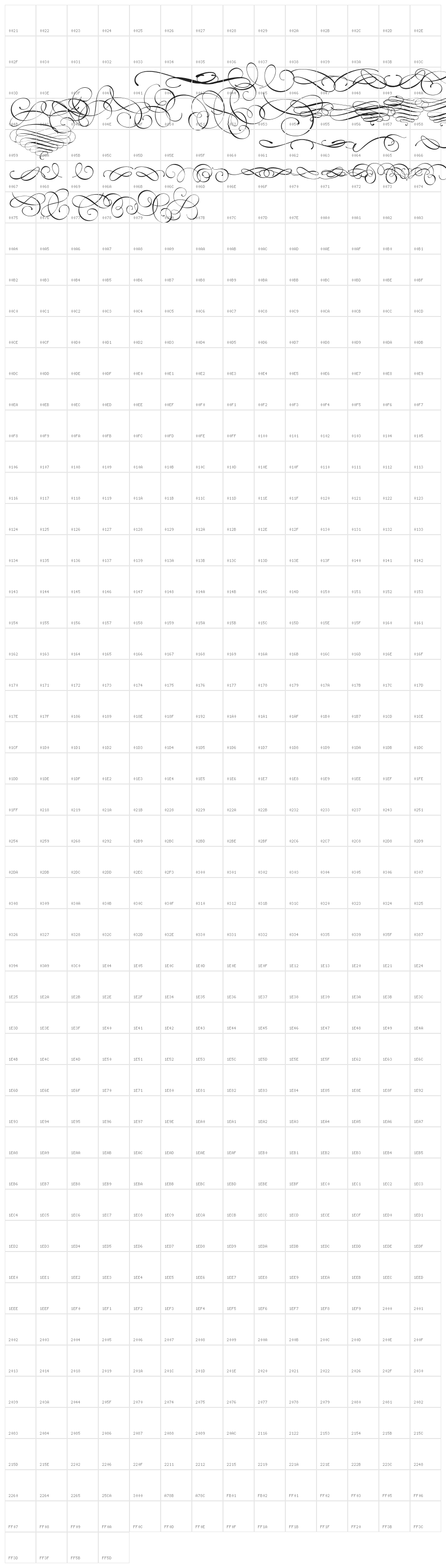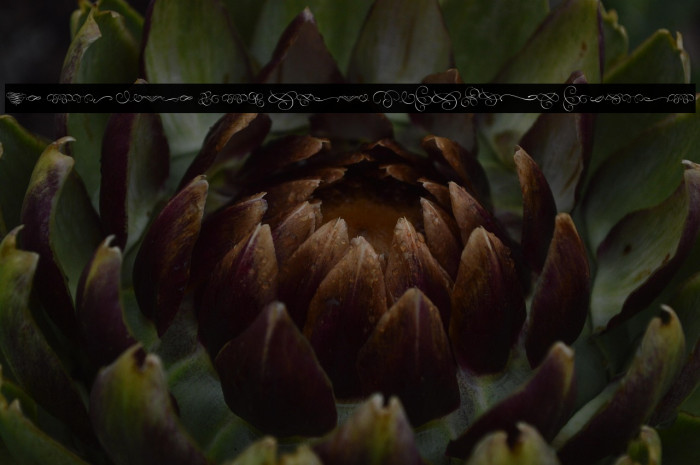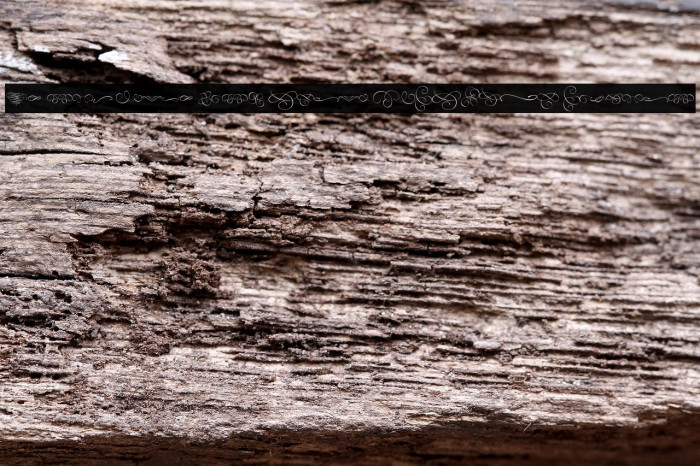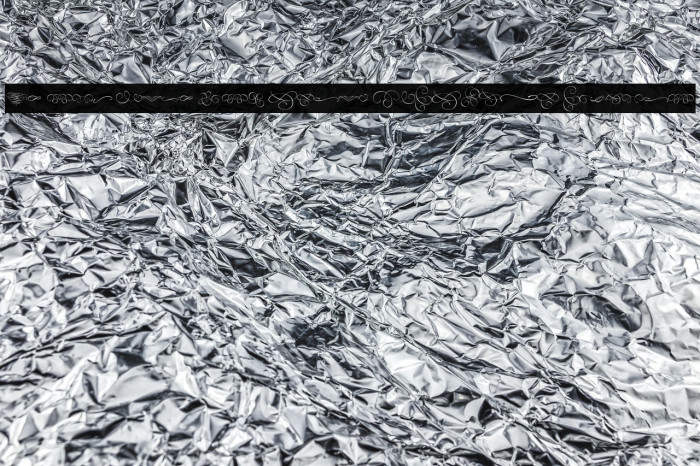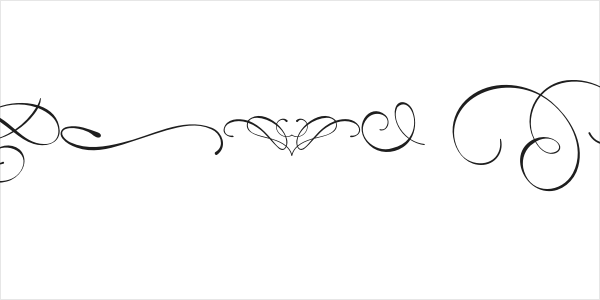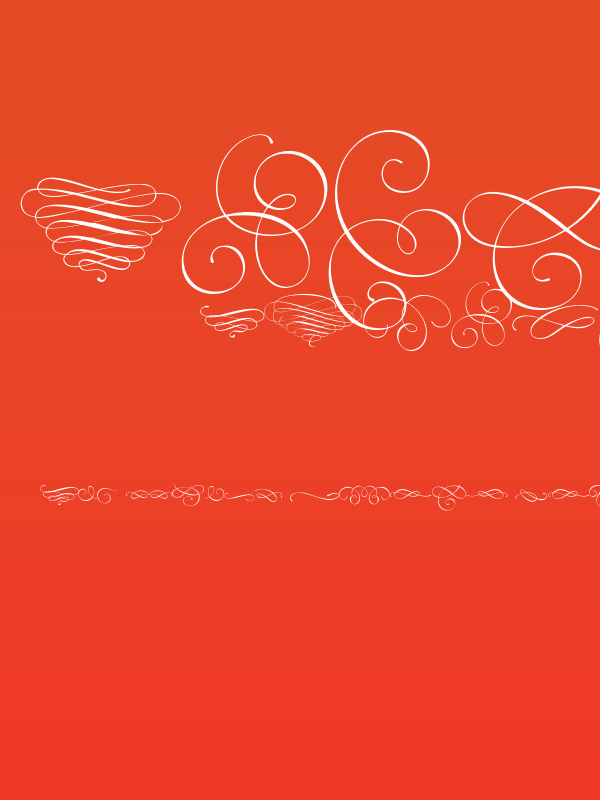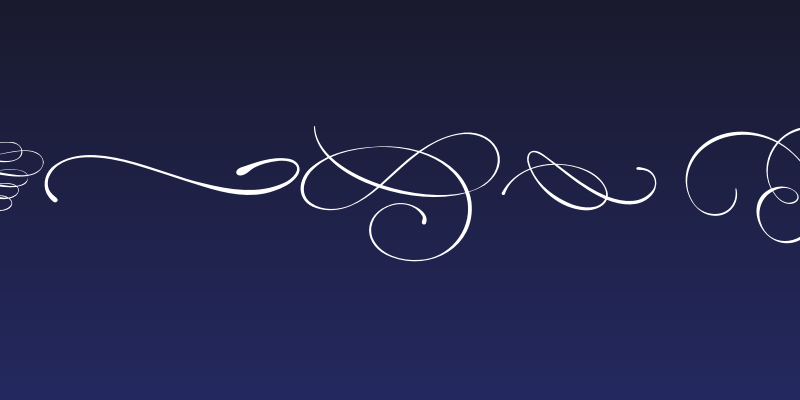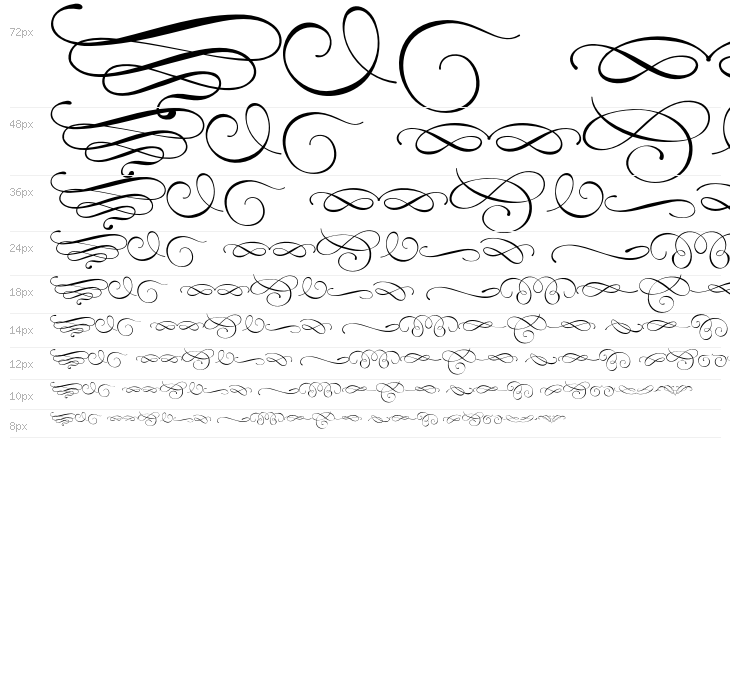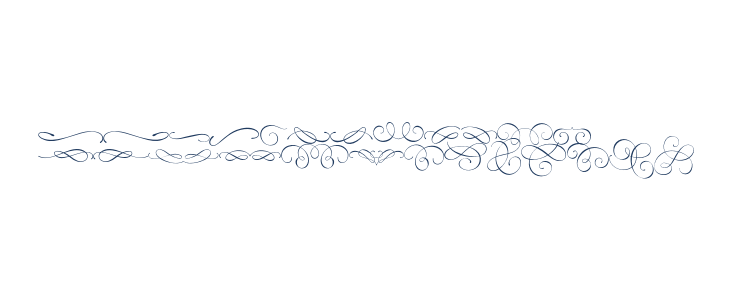
World Discovery Swash PERSONAL Regular Font
World Discovery Swash PERSONAL Regular Description
This design features an array of intricate swashes and flourishes, characterized by elegant, flowing lines and elaborate curves. The elements are highly decorative, showcasing a sophisticated and ornate style that is reminiscent of classic calligraphy. Each swash is unique, with varying degrees of complexity and curvature, creating a sense of movement and grace. The overall appearance is delicate and refined, making it suitable for adding a touch of elegance to any project. The design is versatile, offering a range of decorative options for enhancing visual appeal.
| Use Case | Decorative elements, Borders, Invitations |
| Proposed Projects | Ideal for wedding invitations, greeting cards, decorative borders, and elegant branding projects. |